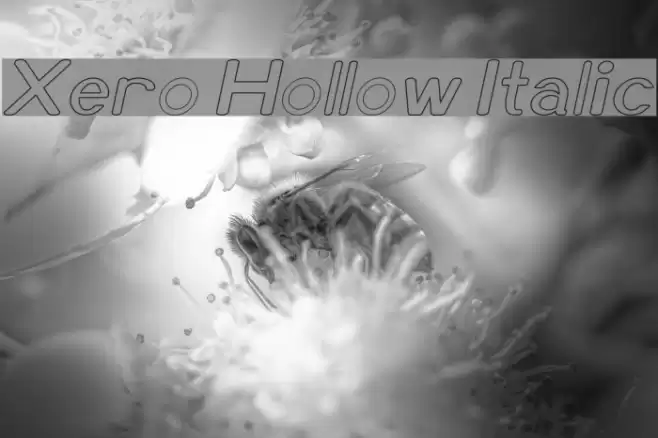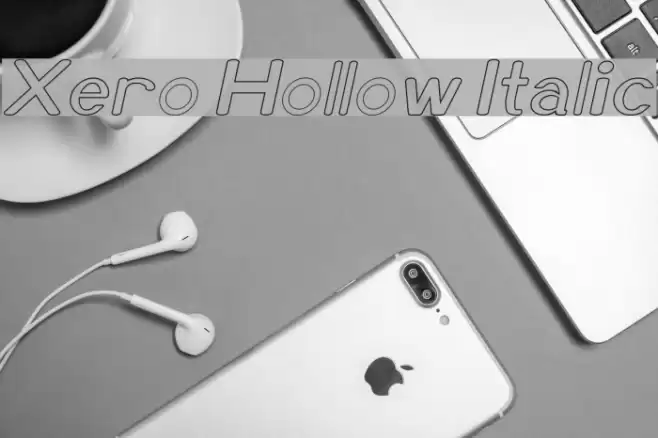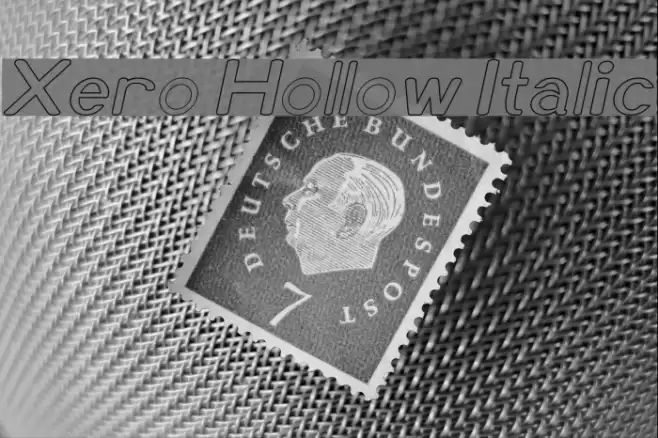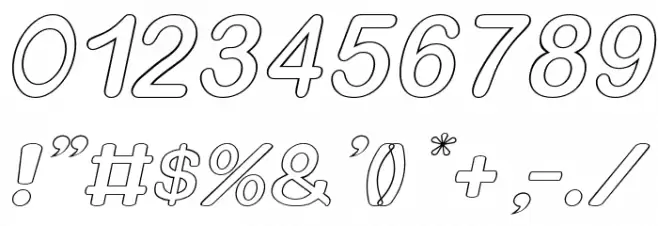
Xero Hollow Italic Font
Xero Hollow Italic Description
This font features a hollow, outlined design with a modern and sleek appearance. The characters are italicized, giving them a dynamic and forward-leaning posture. The uppercase and lowercase letters maintain a consistent style, with rounded edges and smooth curves. The numerals and special characters follow the same outlined aesthetic, ensuring uniformity across all glyphs. This font's hollow nature makes it ideal for overlaying on images or backgrounds where the content behind the text can be seen through the characters.
A modern, italicized hollow font with smooth curves and rounded edges from Uncategorized fonts.
- Proposed Projects: Ideal for creative projects such as posters, logos, and digital artwork where a modern and transparent text effect is desired.